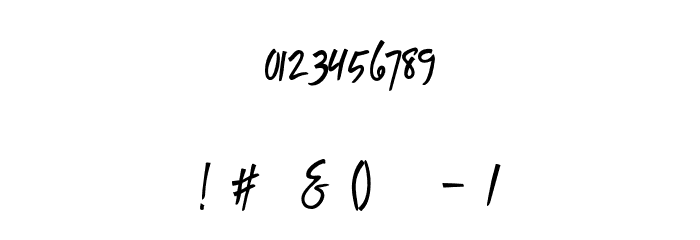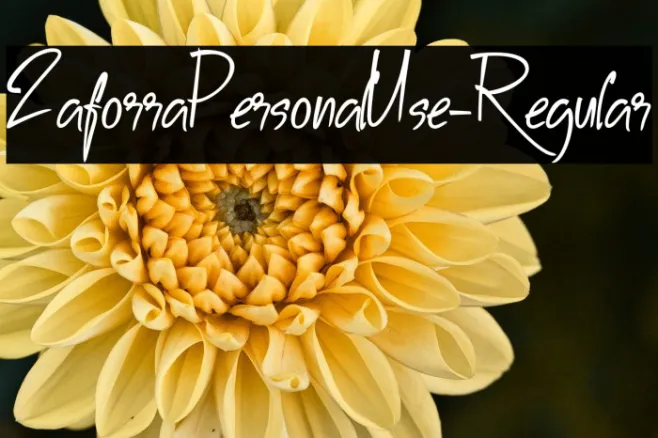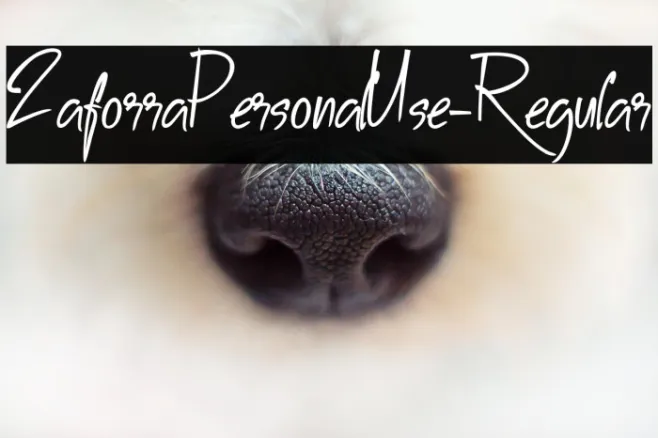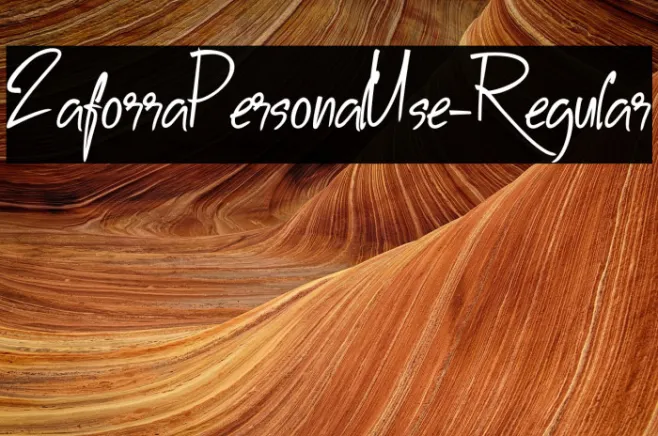
ZaforraPersonalUse-Regular Font
This font exhibits a dynamic and expressive style, characterized by its fluid, handwritten appearance. The letters are elongated with a slight slant, giving it a sense of motion and elegance. The uppercase letters are bold and prominent, while the lowercase letters maintain a consistent flow, enhancing readability. The numerals and special characters are crafted with the same artistic flair, ensuring a cohesive look across all elements. This font's unique style makes it suitable for creative and artistic projects, where a personal touch is desired.
A dynamic, handwritten-style font with fluid, elongated characters.
- Proposed Projects: Ideal for invitations, greeting cards, artistic posters, and branding materials that require a personal and creative touch.
- Use Case: Logos, Headlines, Artistic Projects